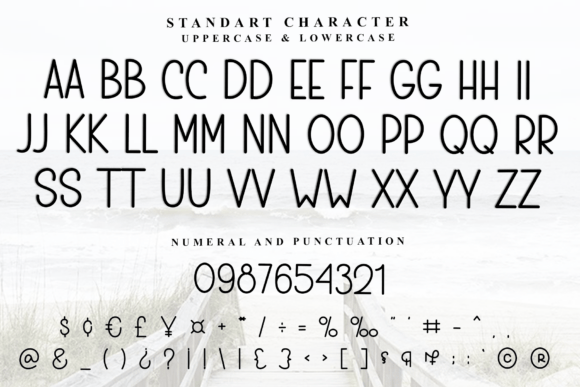
Northing Font: A Beautiful and Versatile Typeface for Creative Projects
Are you looking for a font that can add a touch of uniqueness and elegance to your design projects? Look no further than Northing Font, a beautiful and eye-catching typeface designed with a soft, unique touch. In this article, we’ll explore the features and benefits of Northing Font, and why it’s an ideal choice for designers, artists, and crafters.
What is Northing Font?
Northing Font is a distinctive and stylish typeface that has been designed to give your designs a special character. Its soft and unique touch makes it stand out from other fonts, and its versatility makes it suitable for a wide range of creative projects. Whether you’re working on a graphic design project, crafting, or creating digital art, Northing Font is the perfect choice.
Key Features of Northing Font
Northing Font has several key features that make it an attractive choice for designers and artists. Some of its notable features include:
- Unique and distinctive strokes: Northing Font has a unique and distinctive stroke style that gives it a special character.
- Soft and elegant touch: The font has a soft and elegant touch that makes it perfect for designs that require a touch of sophistication.
- Variety of characters: Northing Font comes with a wide range of characters, making it suitable for a variety of design projects.
Benefits of Using Northing Font
There are several benefits to using Northing Font in your design projects. Some of the benefits include:
- Enhance your designs: Northing Font can enhance your designs and make them more appealing to your audience.
- Perfect for creative projects: The font is perfect for creative projects, such as graphic design, crafting, and digital art.
- Versatile and flexible: Northing Font is versatile and flexible, making it suitable for a wide range of design projects.
Use Cases for Northing Font
Northing Font is suitable for a wide range of design projects and use cases. Some of the use cases include:
- Graphic design projects: Northing Font is perfect for graphic design projects, such as creating logos, brochures, and posters.
- Crafting and DIY projects: The font is suitable for crafting and DIY projects, such as creating handmade cards, gift tags, and scrapbooking.
- Digital art and illustration: Northing Font can be used in digital art and illustration projects, such as creating digital paintings and illustrations.
- Web design and development: The font can be used in web design and development projects, such as creating website headers, titles, and other typography elements.
Why Choose Northing Font?
There are several reasons why you should choose Northing Font for your design projects. Some of the reasons include:
- Unique and distinctive style: Northing Font has a unique and distinctive style that sets it apart from other fonts.
- High-quality and professional design: The font is designed with high-quality and professional standards in mind.
- Easy to read and use: Northing Font is easy to read and use, making it perfect for a wide range of design projects.
In conclusion, Northing Font is a beautiful and versatile typeface that is perfect for designers, artists, and crafters. Its unique and distinctive style, soft and elegant touch, and variety of characters make it an attractive choice for a wide range of design projects. With its compatibility with various platforms and applications, Northing Font is an ideal choice for anyone looking to enhance their designs and make them more appealing to their audience.
- What is Northing Font?: Northing Font is a beautiful and eye-catching typeface designed with a soft, unique touch.
- Is Northing Font easy to read?: Yes, Northing Font is easy to read and use, making it perfect for a wide range of design projects.